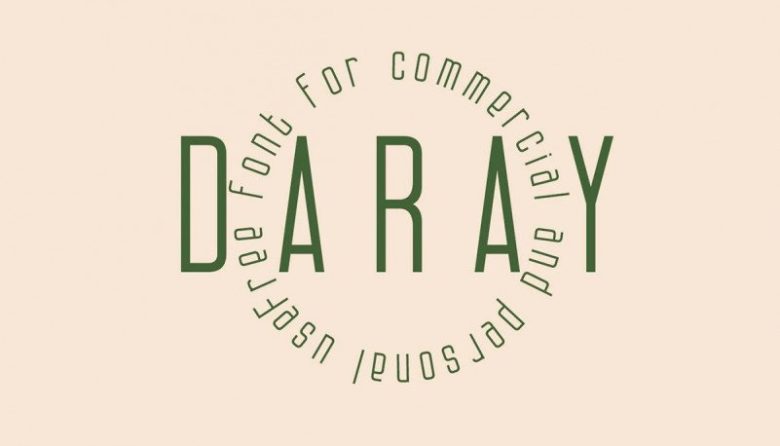
Daray Font
Daray Font is simple and minimalist sans serif font created by Maxim Raikov. Simplicity is the key to success. Right angles and smooth curves, meet – Daray. This font is a san-serif with multilingual support including English and Russian.